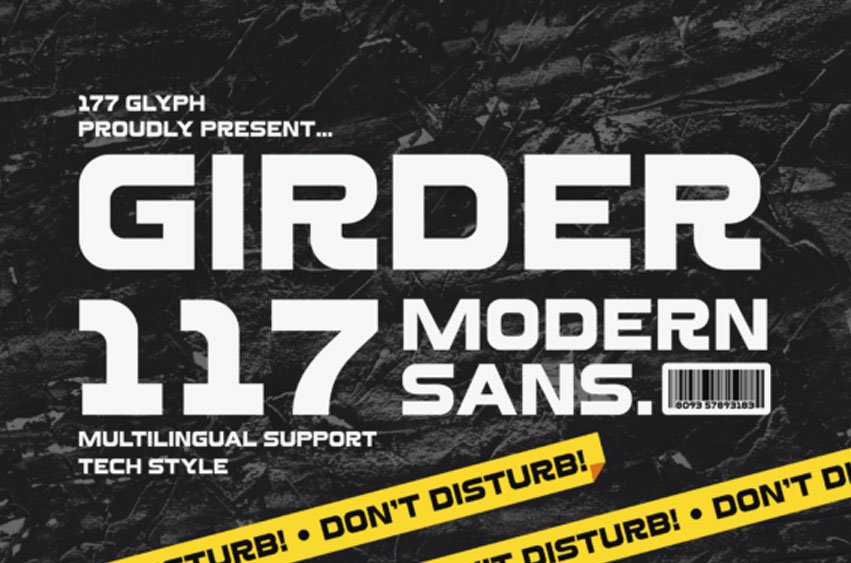
Girder 117 Font
Girder 117 Font is a type of font called a Modern Sans Serif. It’s simple and clean, without any fancy decorations on the letters.
The design is sleek and modern, making it easy to read both on screens and in print. If you want your text to look contemporary and professional, Girder 117 is a great choice.